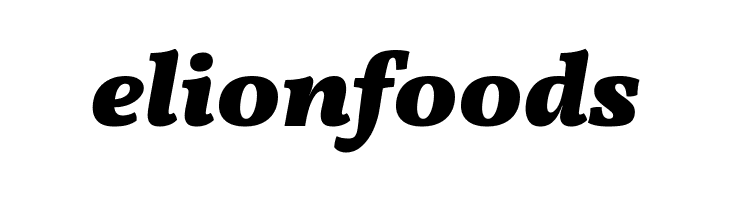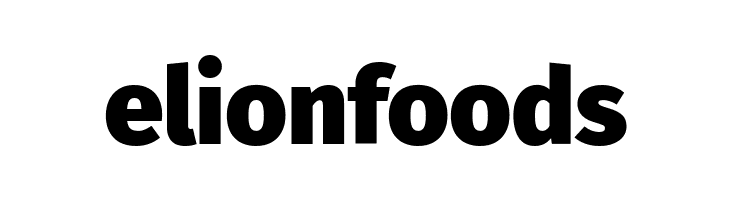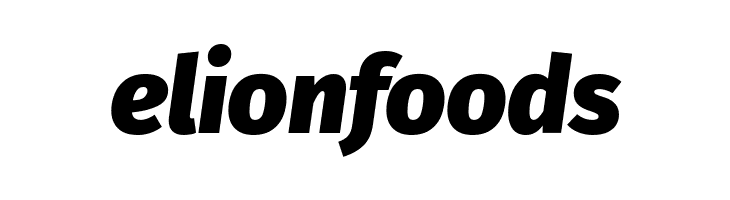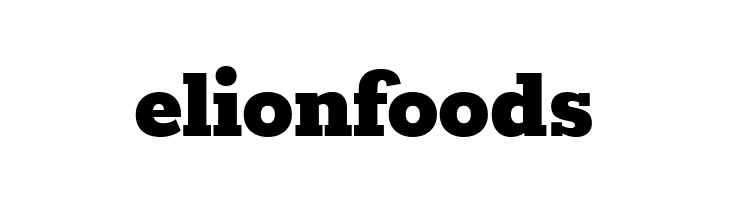
A bold, italic serif font with strong strokes and elegant serifs.
A bold, semi-condensed font with a modern and impactful style.
Bold, semi-condensed italic typeface with a strong, modern style.
A bold, geometric sans-serif font with strong, clean lines.
A bold, slab serif font with strong, thick strokes and a modern aesthetic.
A bold, modern font with a geometric and uniform design.
A bold, serif typeface with strong strokes and classic serifs.